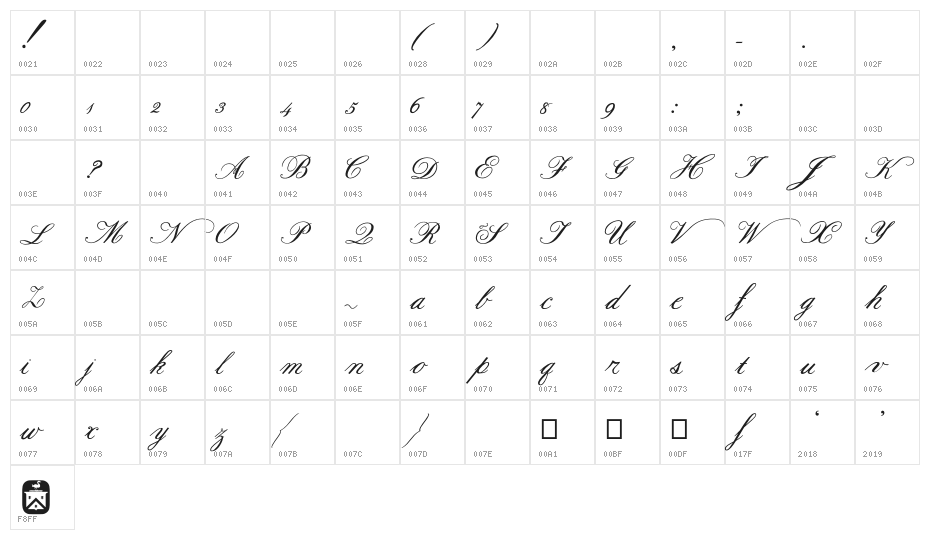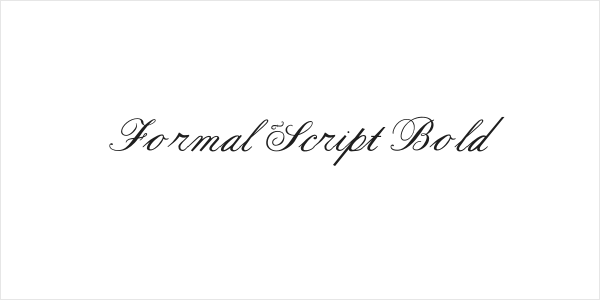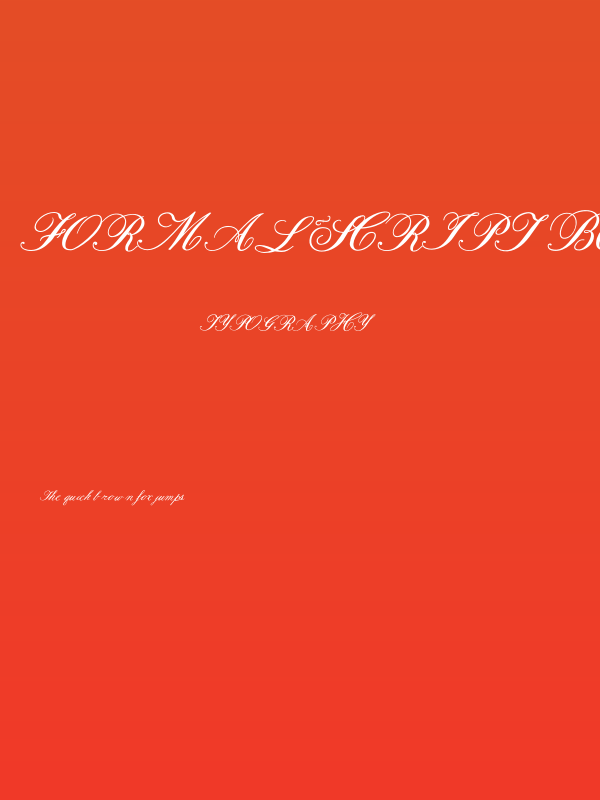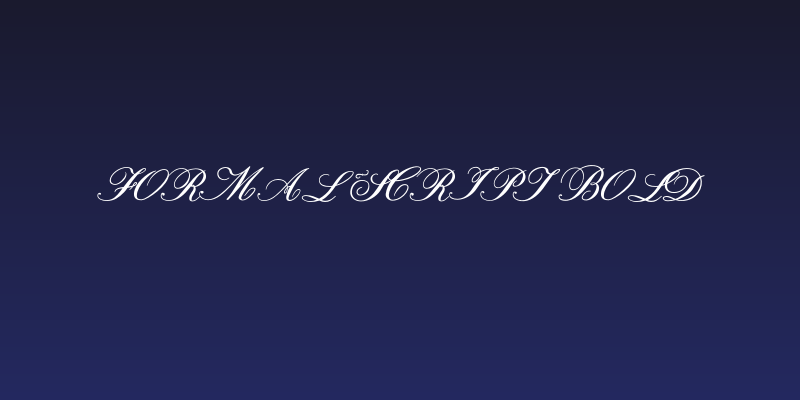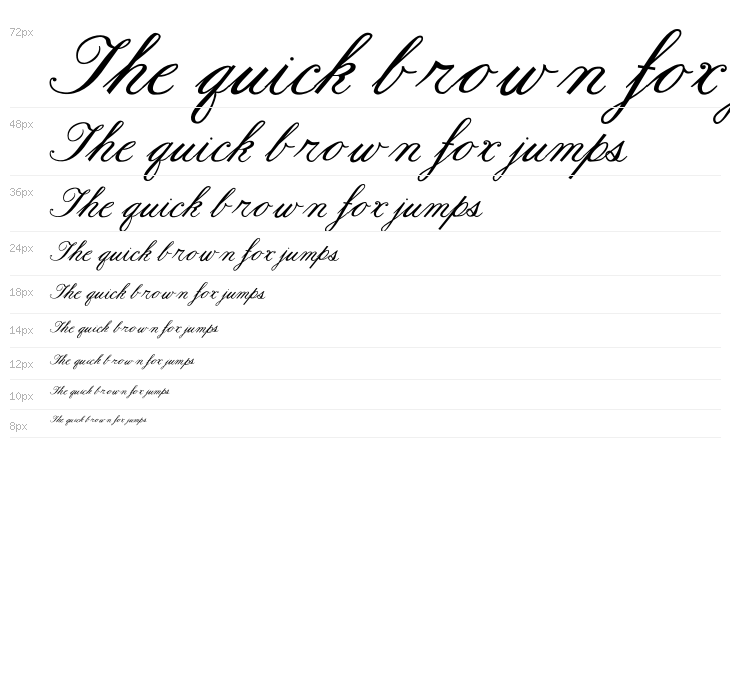
Formal Script Bold Font
Formal Script Bold Description
This elegant script font features a bold and flowing style, characterized by its intricate and ornate letterforms. The uppercase letters are particularly elaborate, with sweeping curves and flourishes that give a sense of grandeur and sophistication. The lowercase letters maintain a consistent flow, connecting smoothly to create a harmonious and fluid appearance. The numerals and special characters are designed with the same attention to detail, ensuring a cohesive look across all elements. This font exudes a formal and classic charm, making it ideal for applications that require a touch of elegance and refinement.
| Use Case | Logos, Invitations, Decorative headings |
| Proposed Projects | Ideal for wedding invitations, formal event programs, luxury branding, and elegant stationery. |